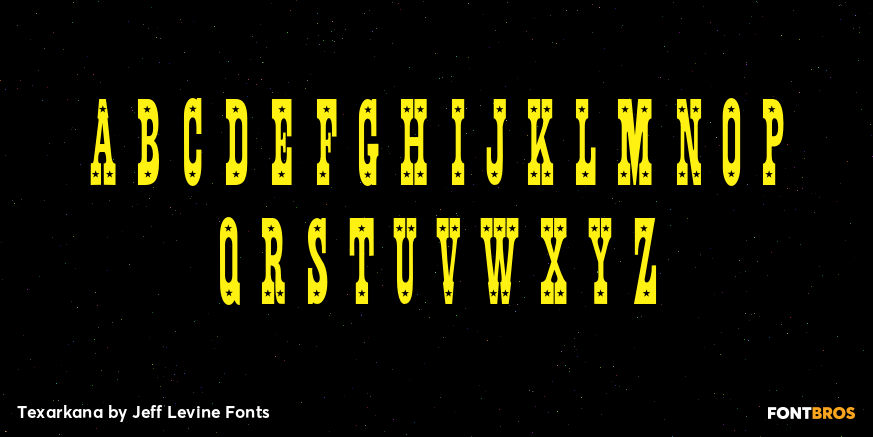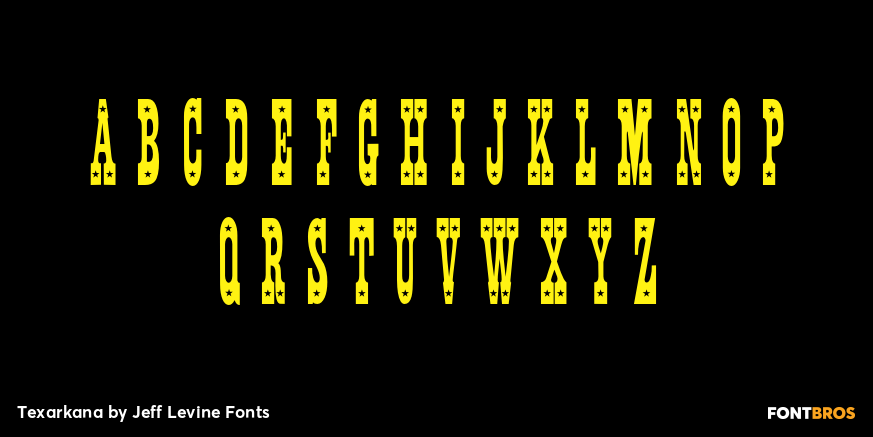
Texarkana
Texarkana JNL is based on classic condensed wood type from the 1800s, and is embellished with stars on the top and bottom for a decorative look.